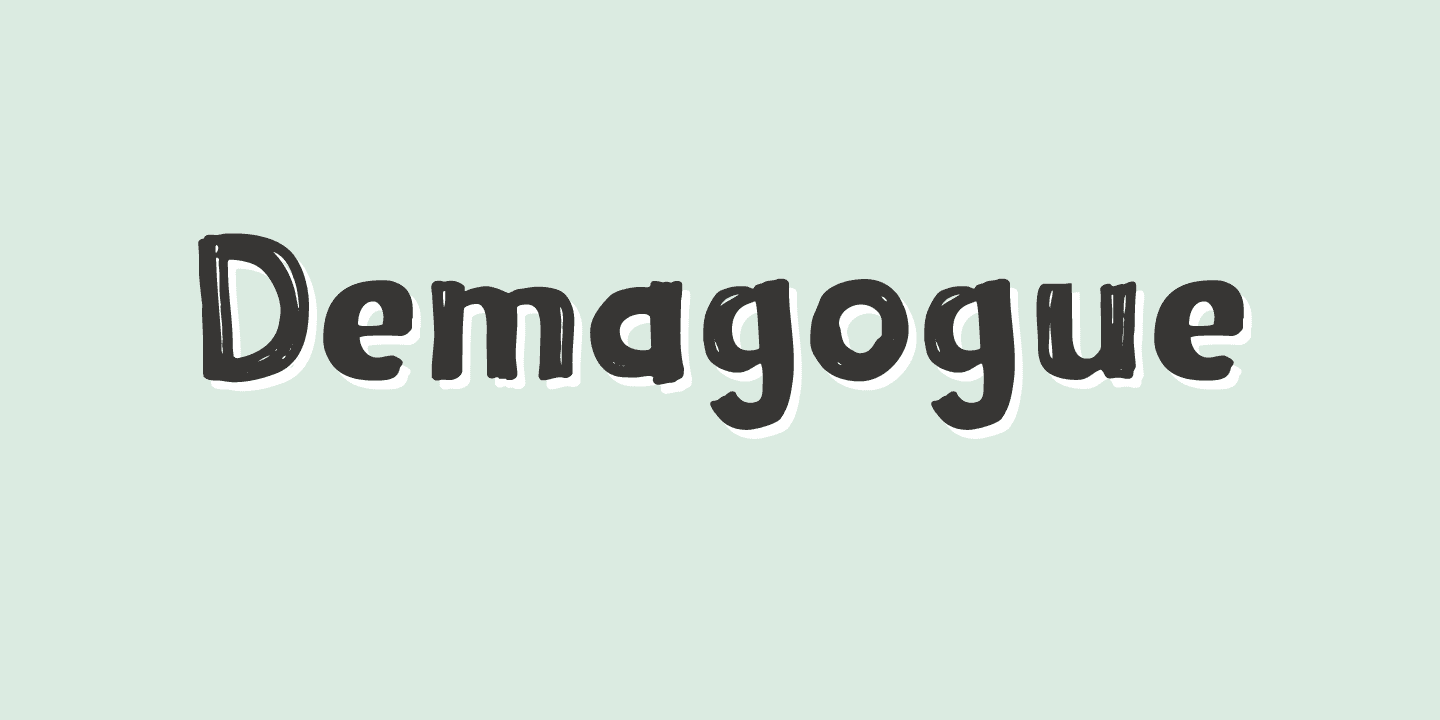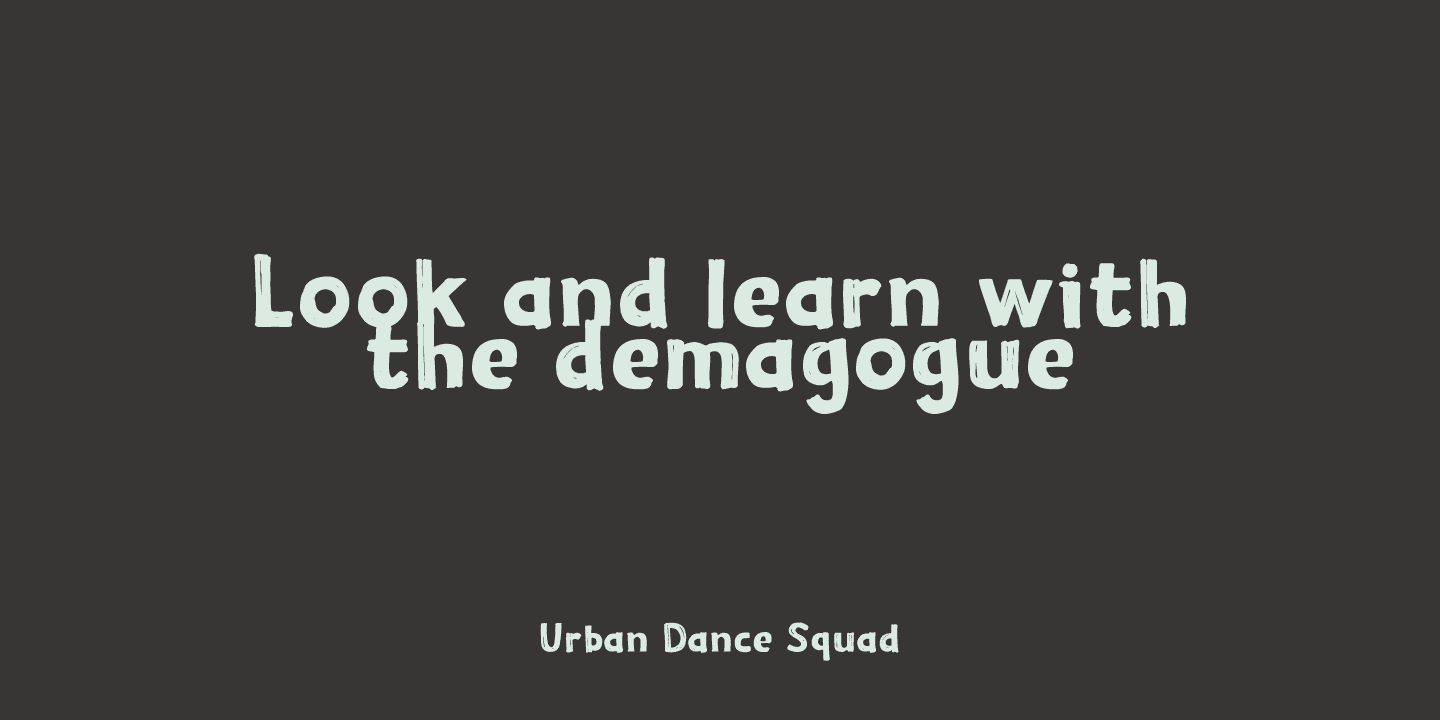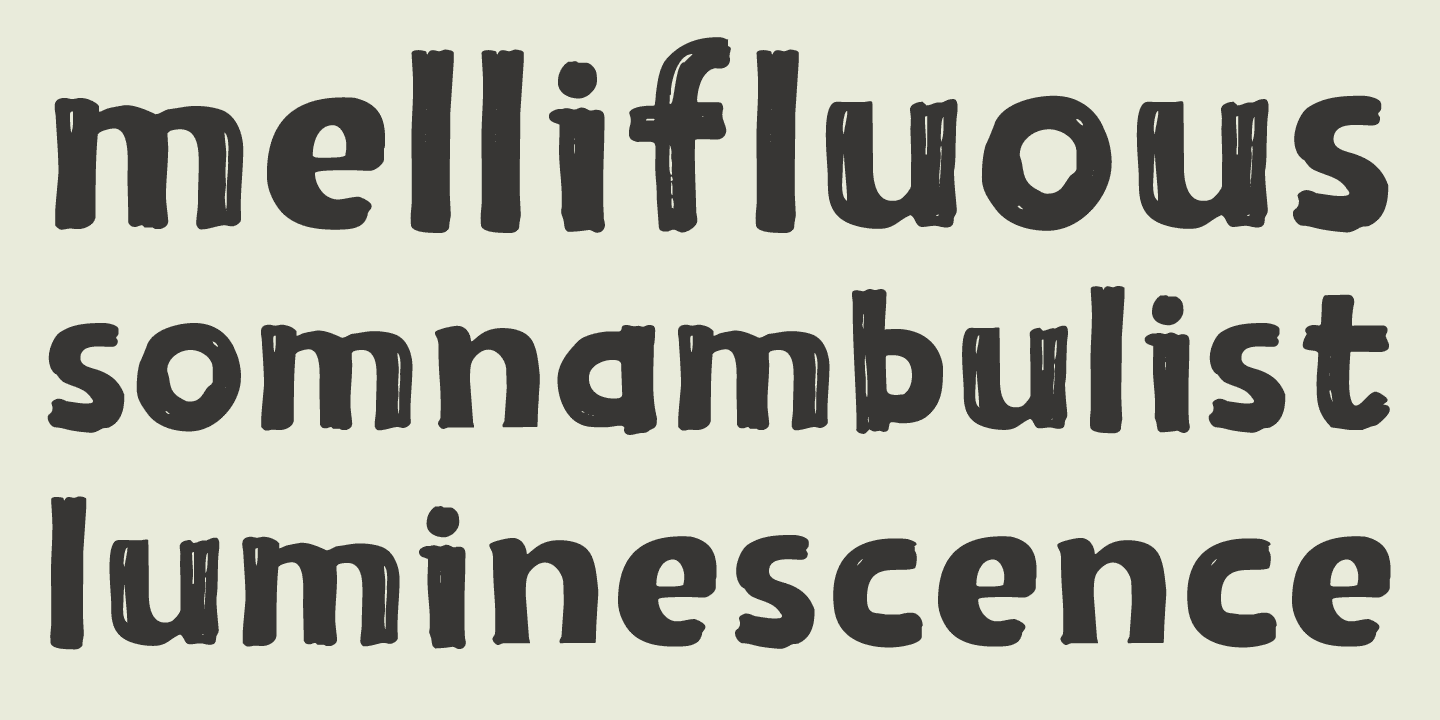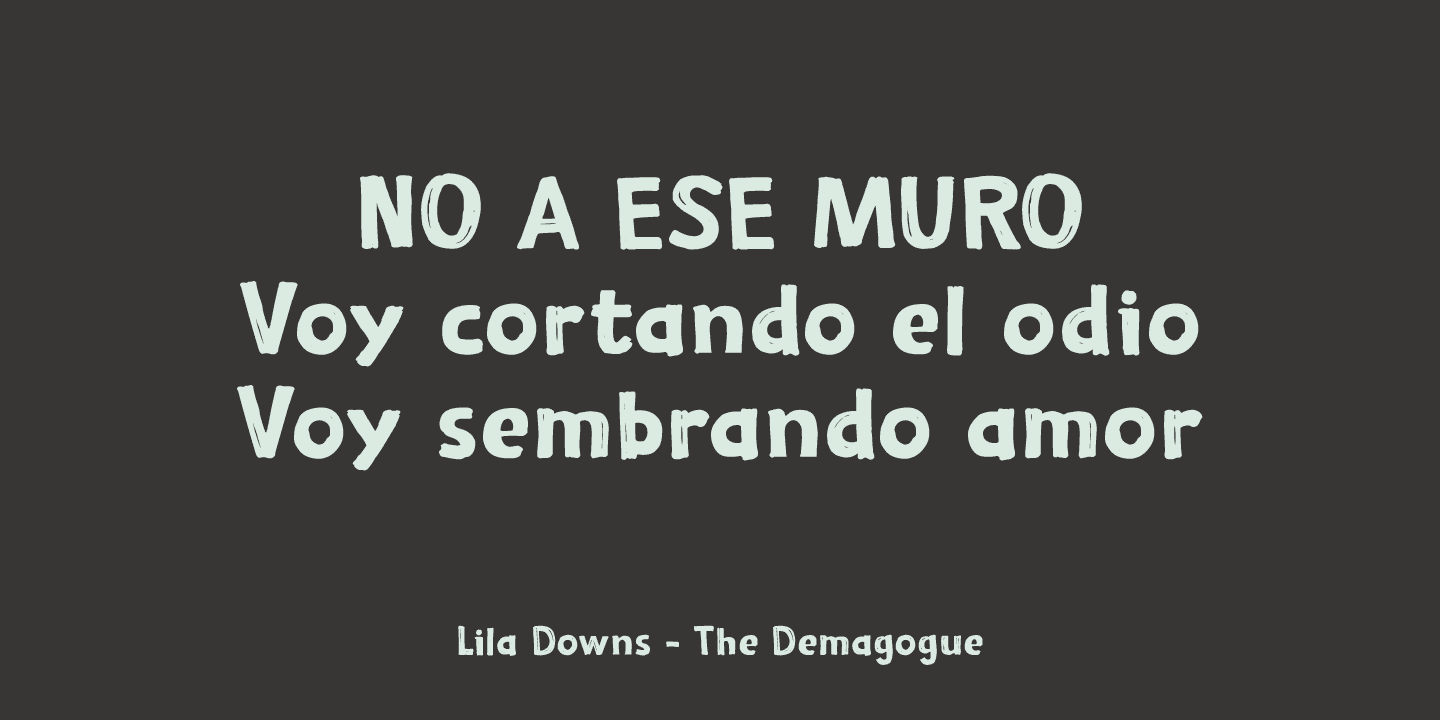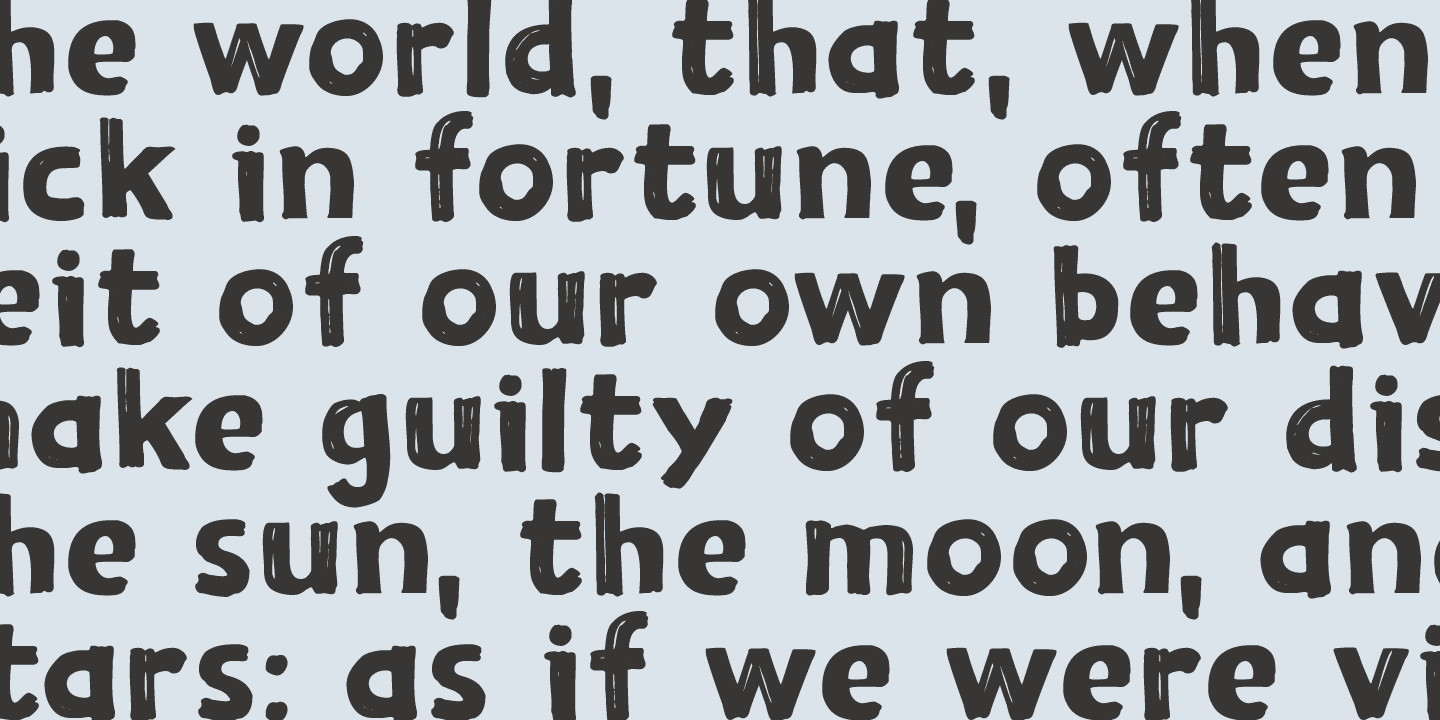
Demagogue Family (2 fonts)
Demagogue was made using a Sharpie pen and a piece of expensive paper. The result is a very legible, very neat and very bold font. Demagogue is ideal for when you want to get your message across, but hopefully not in a demagogue-ish way! ;-)